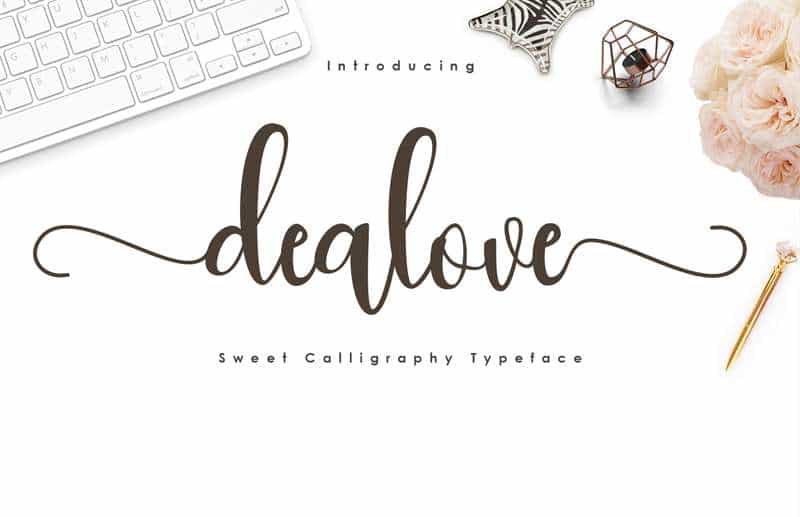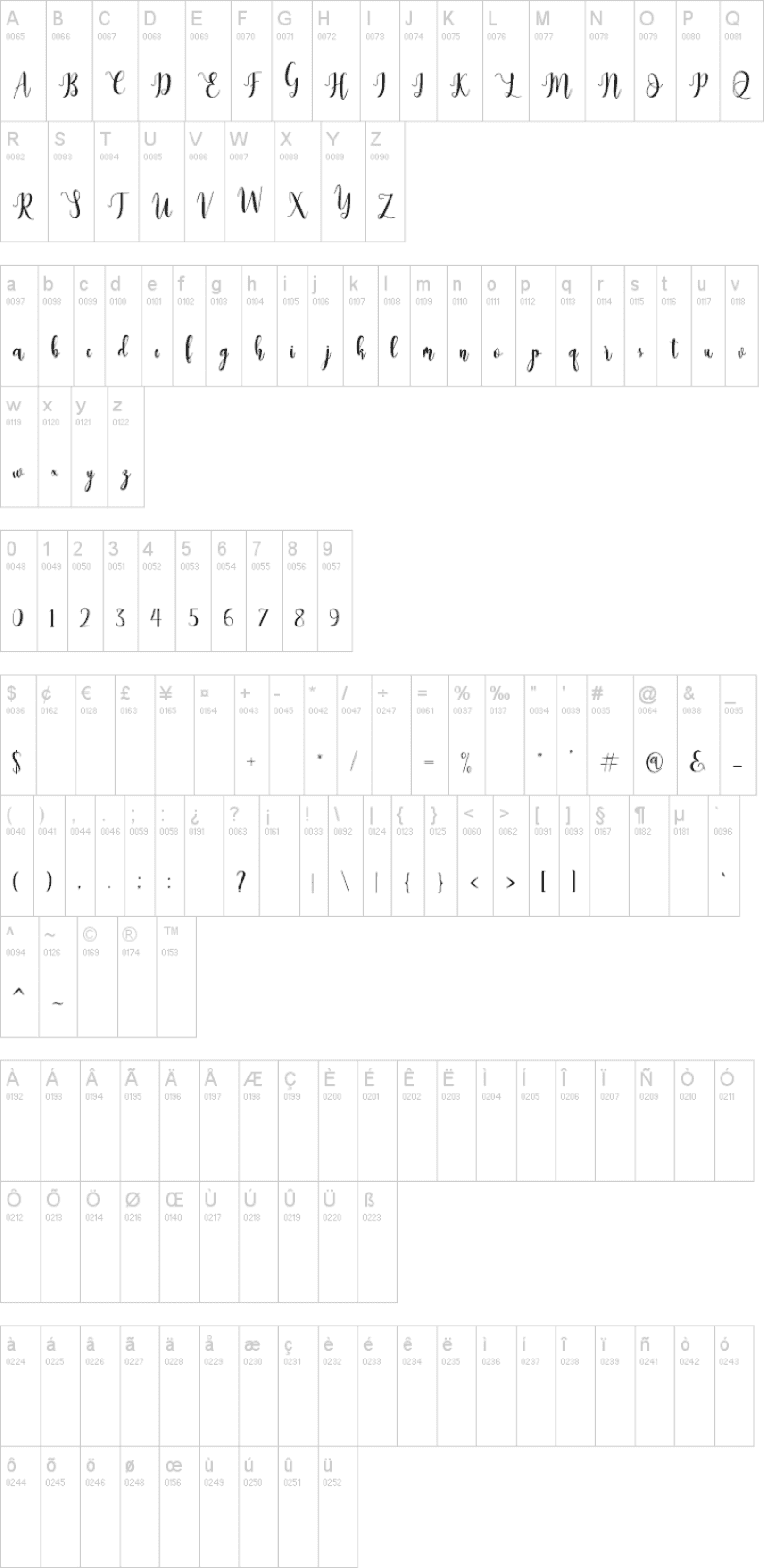
Discover Dealove Script Font, part of the Calligraphy collection—a versatile and unique font perfect for adding a personal touch to your projects. Download it for free and enjoy crafting designs with style, from invitations to social media posts. This font is available exclusively for personal use, giving you the freedom to create without limits. Unlock your creativity with Dealove Script Font today!
Here are the newest styles dealove font Script with the kind of modern hand scratches, I think you’ll like this font, if you want to use for your work this font is very easy and simple because this font has many features that include all the letters in lower and upper case, punctuations marks, numbers, and multilingual characters. font also has several ligatures and the alternate style of Stylistic Sets for those who have software which is able to work OpenType (Photoshop / Illustrator / InDesign).